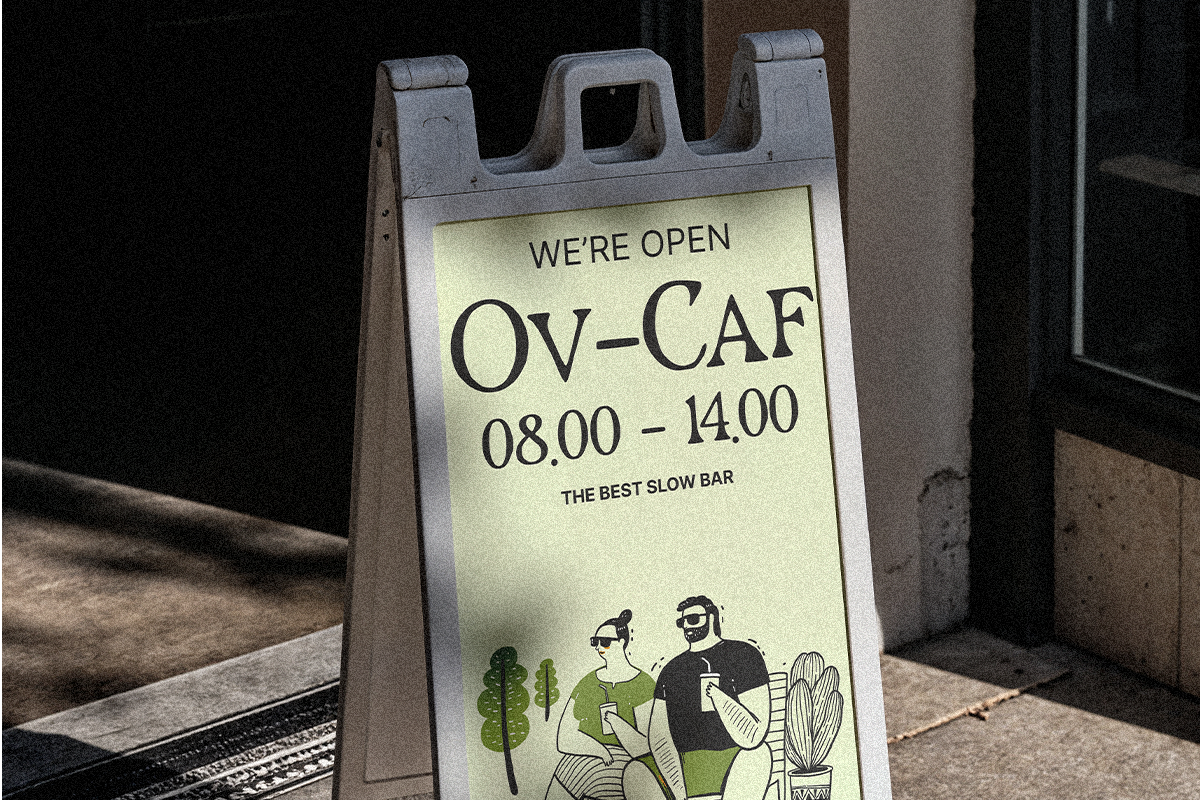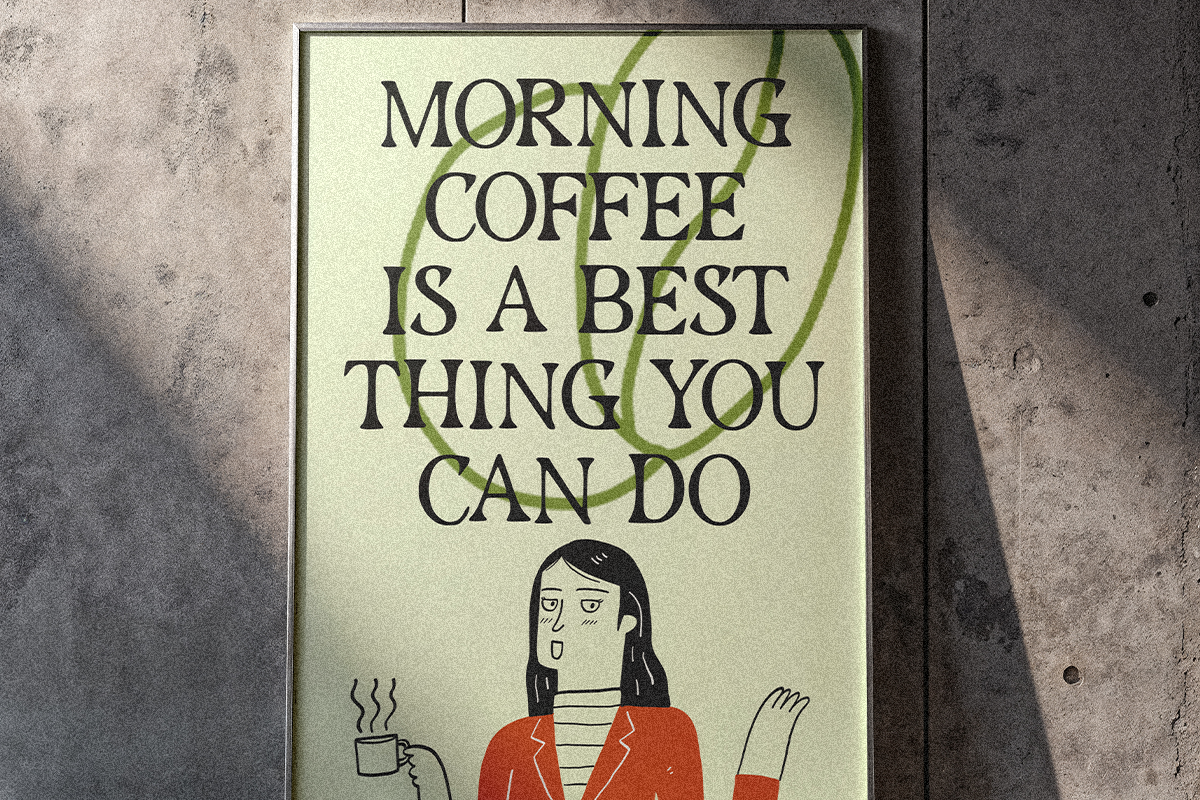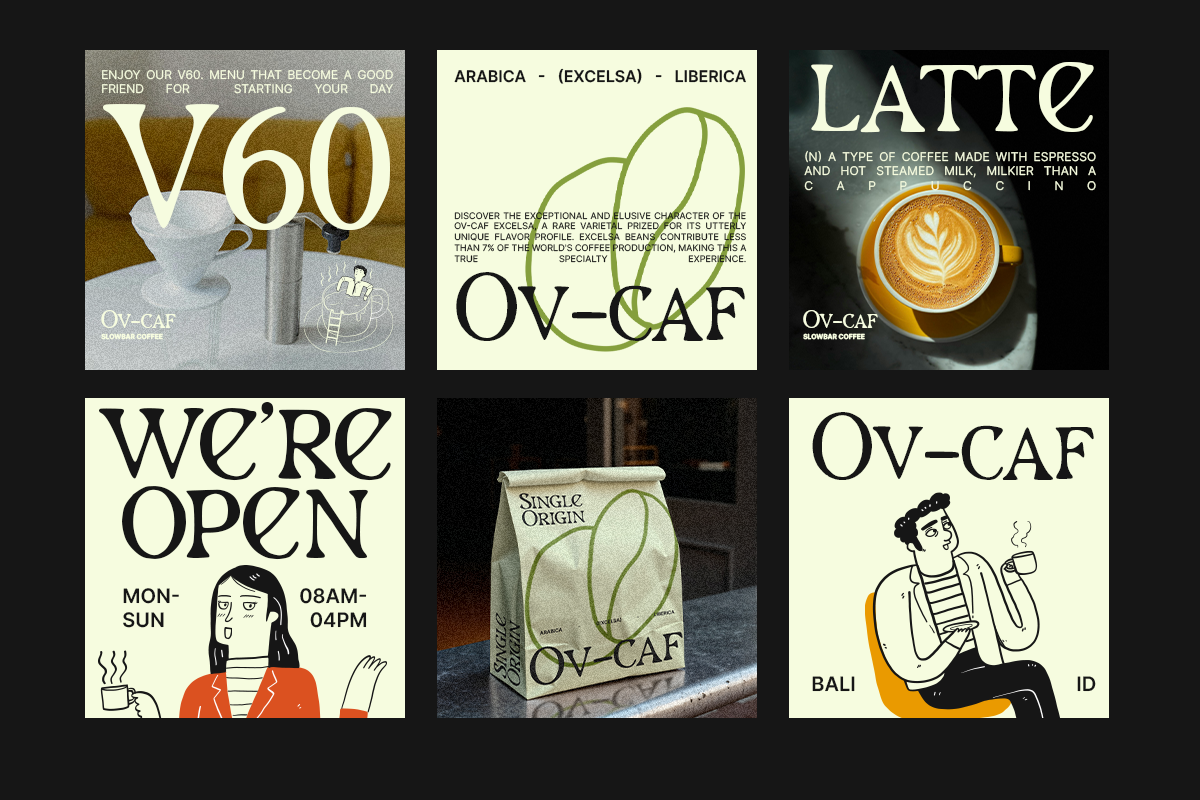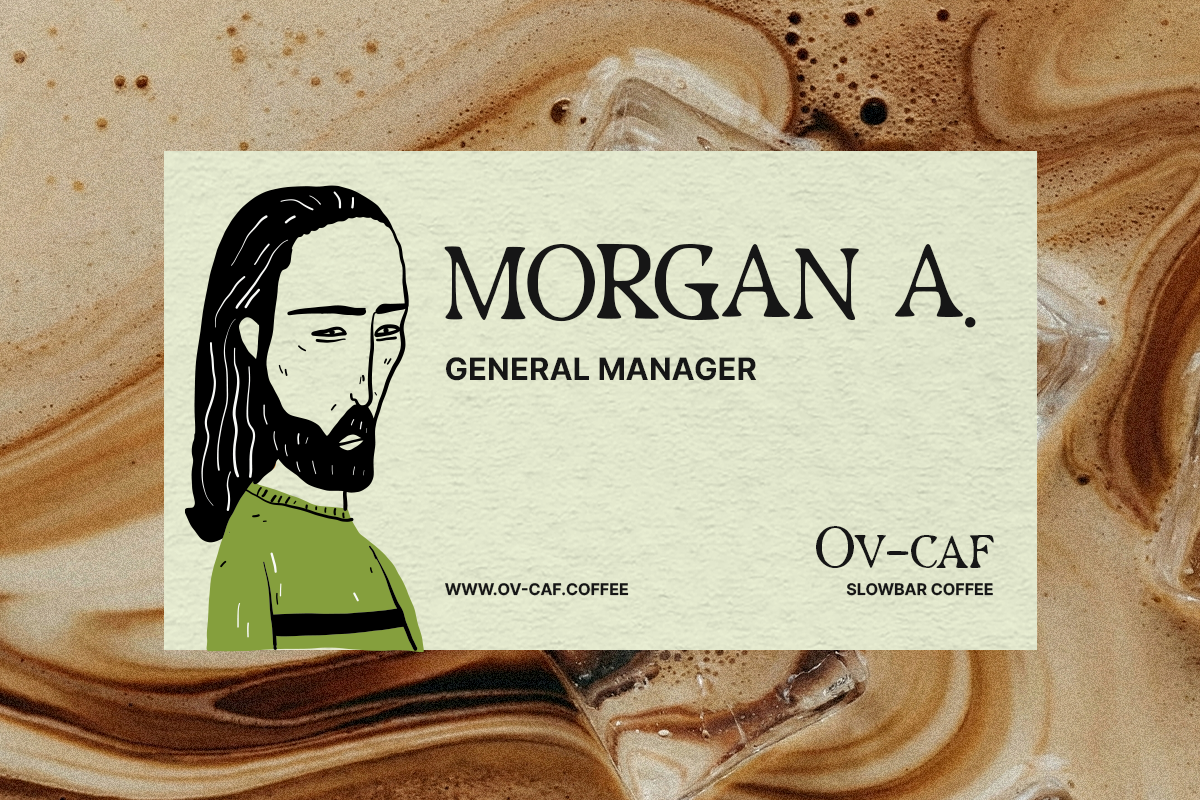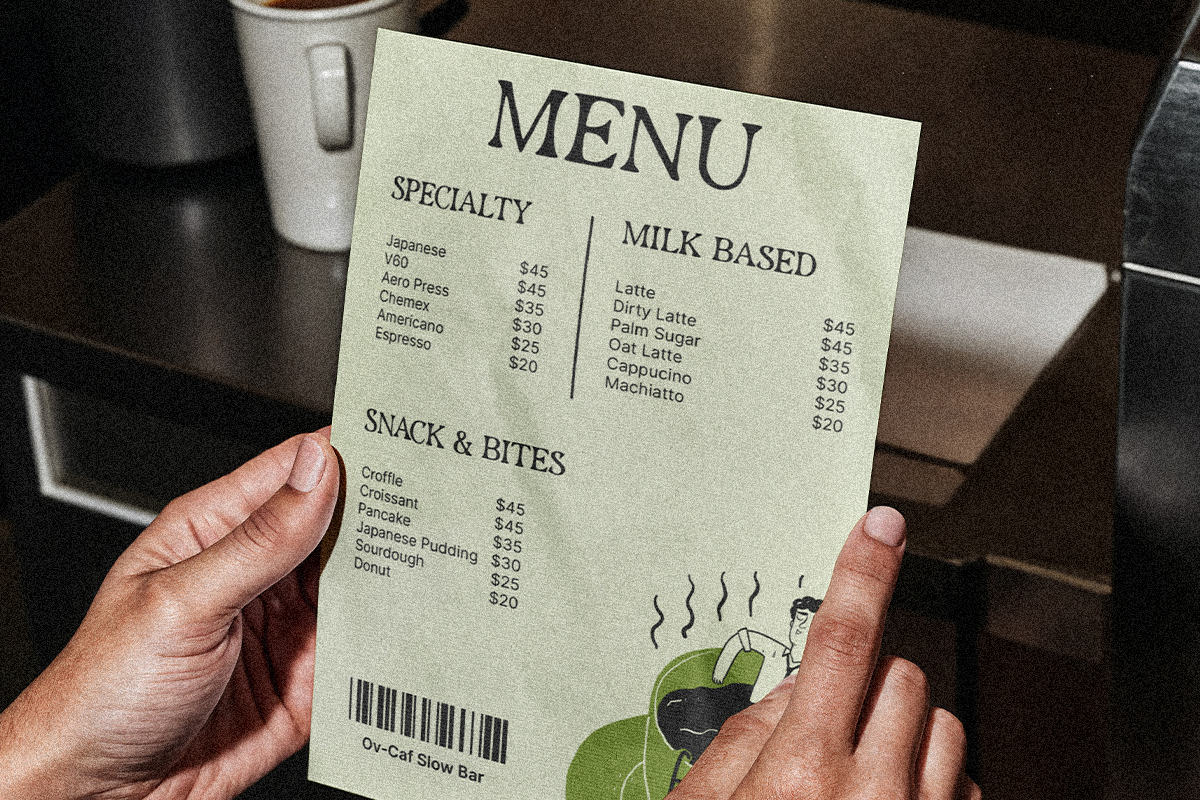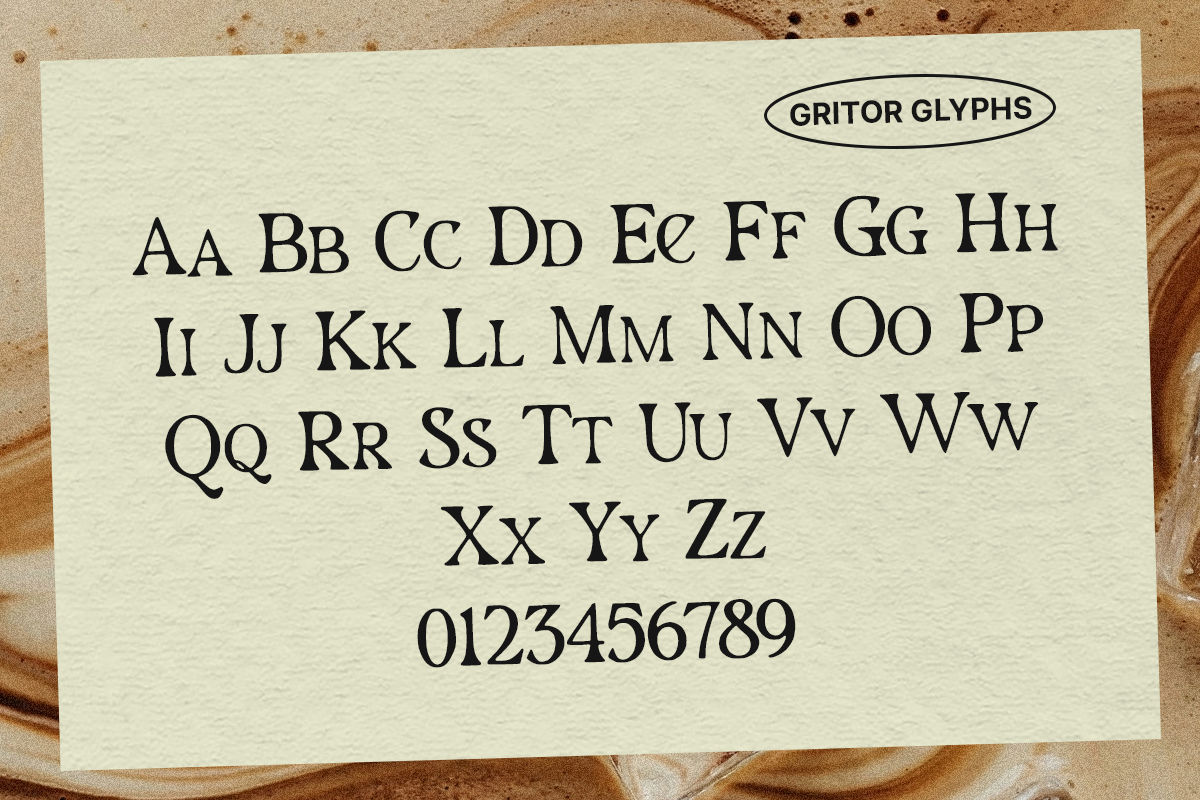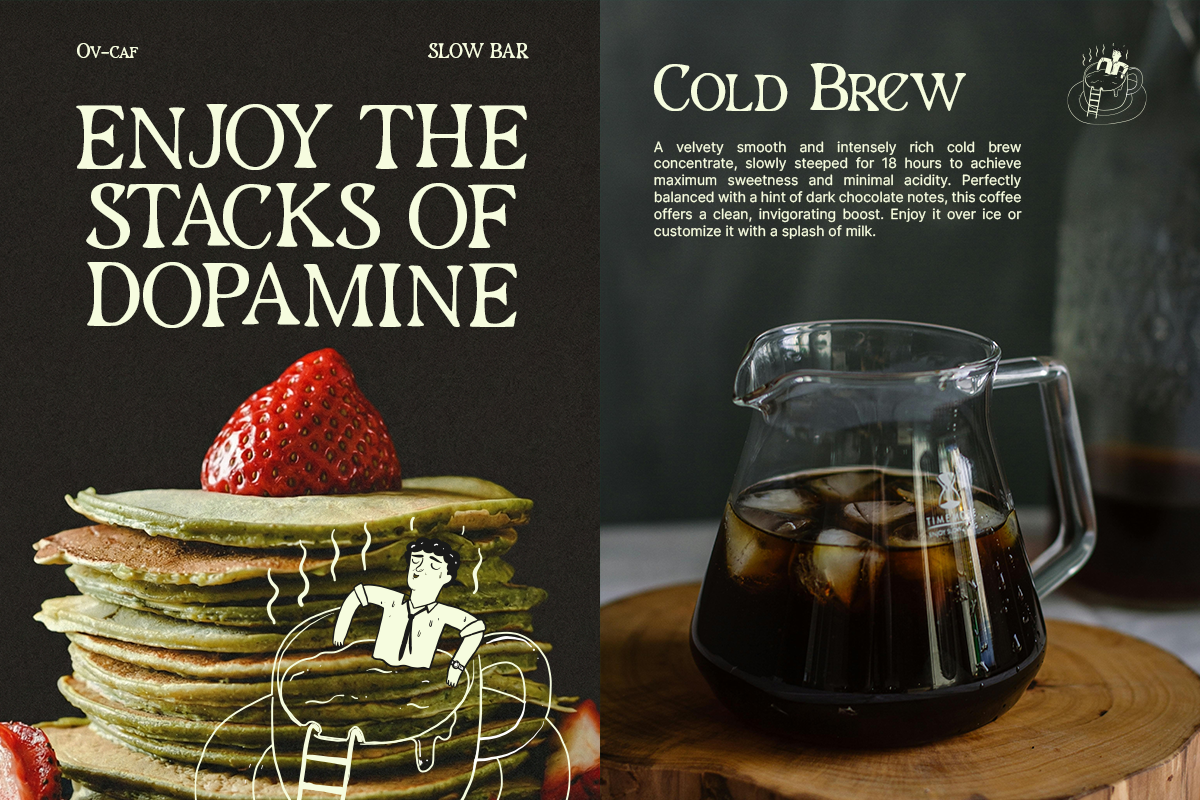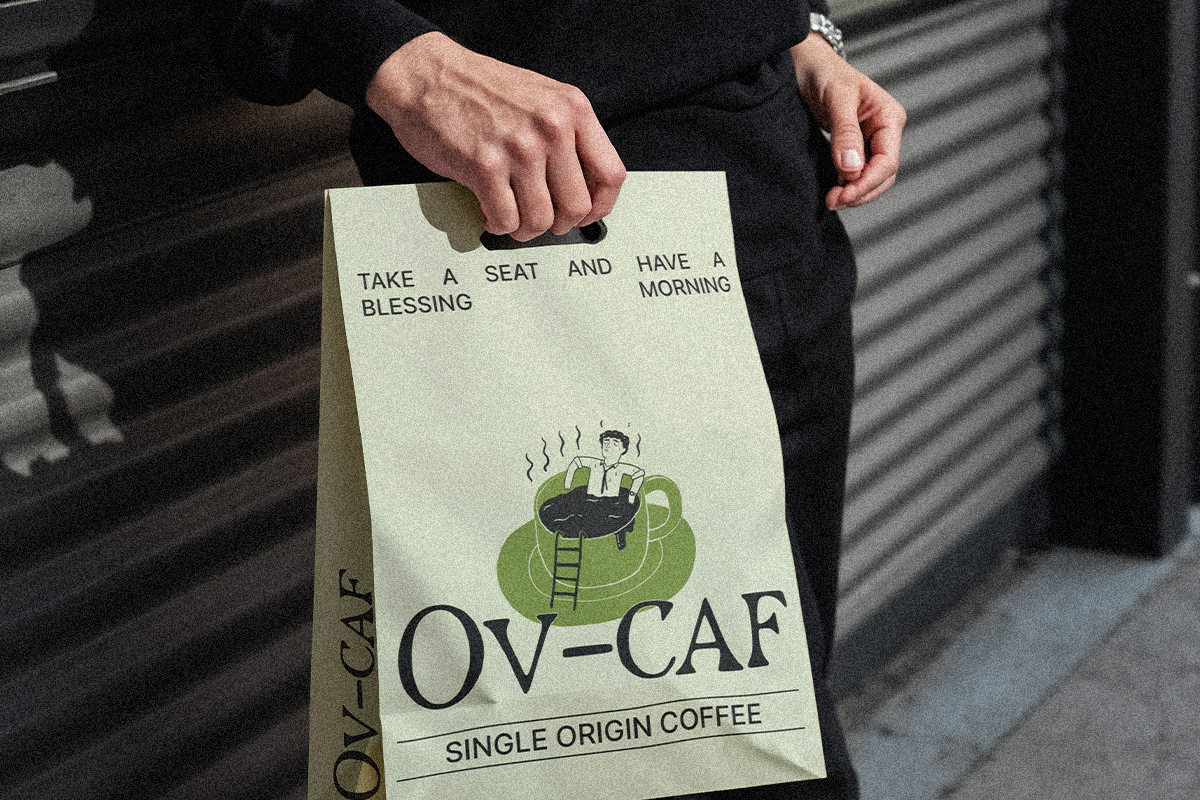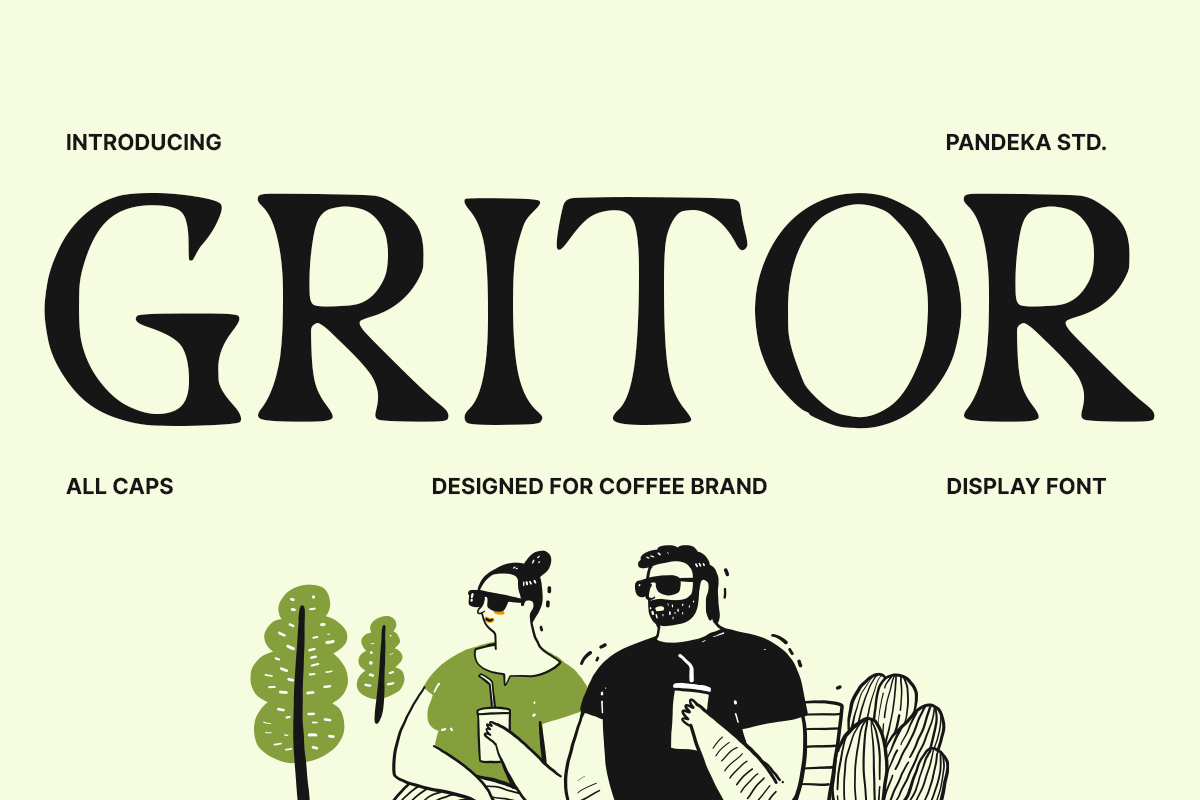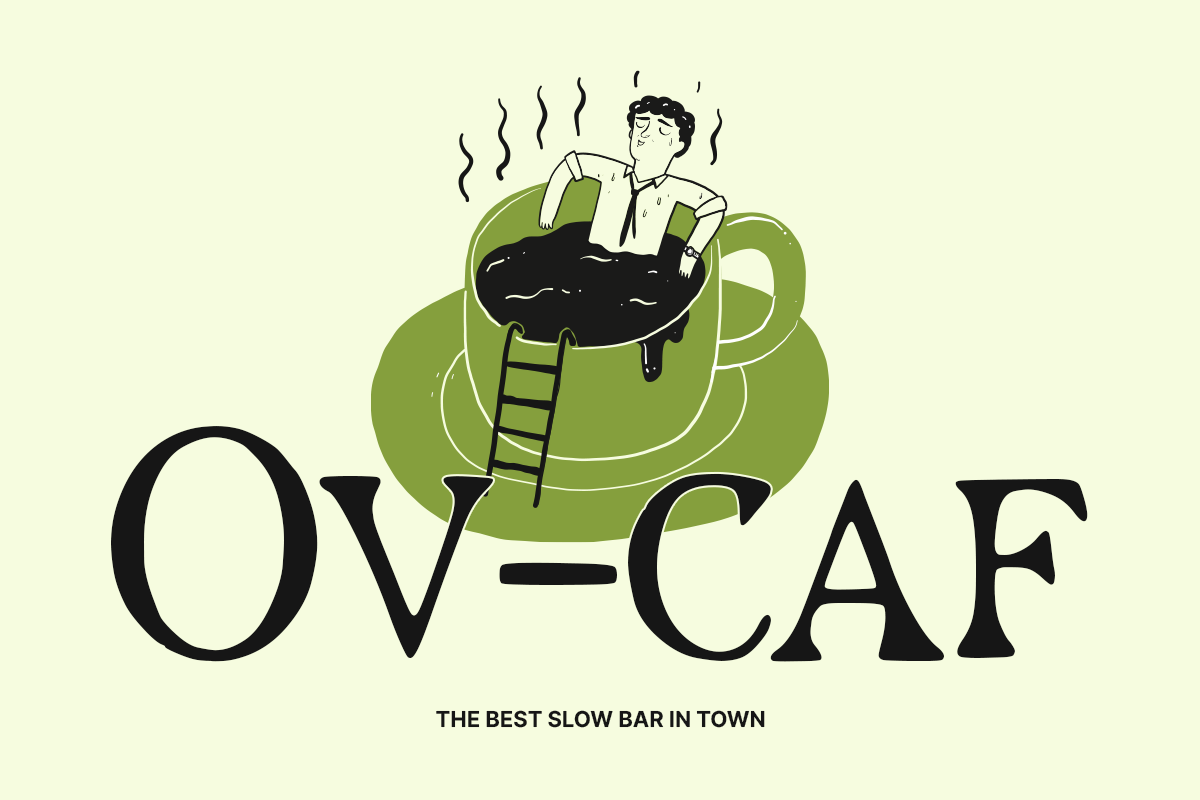
Gritor - Editorial Handmade Font
Gritor is an editorial handmade font crafted with imperfect strokes, natural curves, and an expressive handcrafted touch. Designed in 1 regular handmade style, this typeface blends the charm of hand-drawn lettering with the sophistication of editorial typography—making it perfect for storytelling, magazine layouts, café branding, menus, posters, packaging, and creative identity projects.
Every letter feels organic and intentional, giving your design a warm, artistic, and humanistic look. Gritor carries a subtle vintage character while staying clean enough for modern editorial use—ideal for coffee shops, lifestyle brands, artisanal products, and expressive layouts that need personality and authenticity.
- 1 Style: Regular
- Full Character Set: Uppercase, lowercase, numbers, symbols, and punctuation
Bring a handcrafted editorial mood to your visual projects with Gritor.